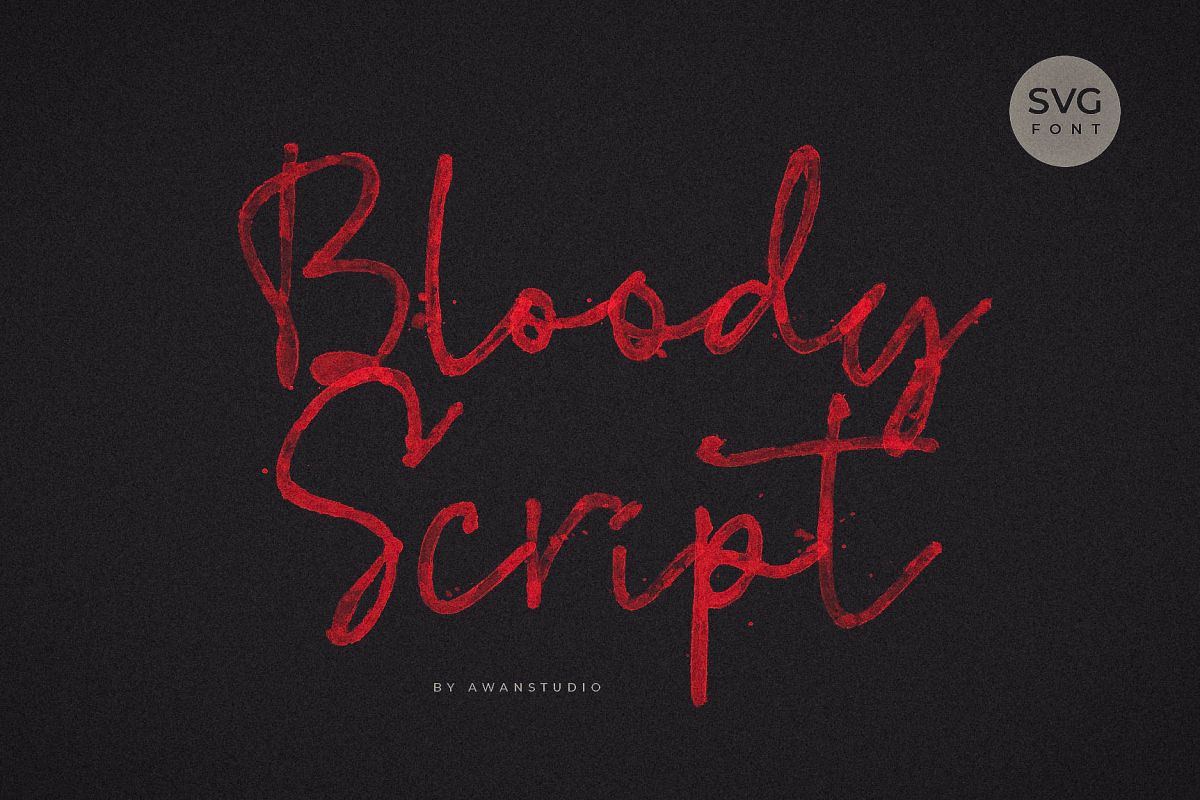
Bloody Script
The Bloody Script is an amazing horror font, perfected with look-alike blood texture. Included are a regular script font, and a svg version.